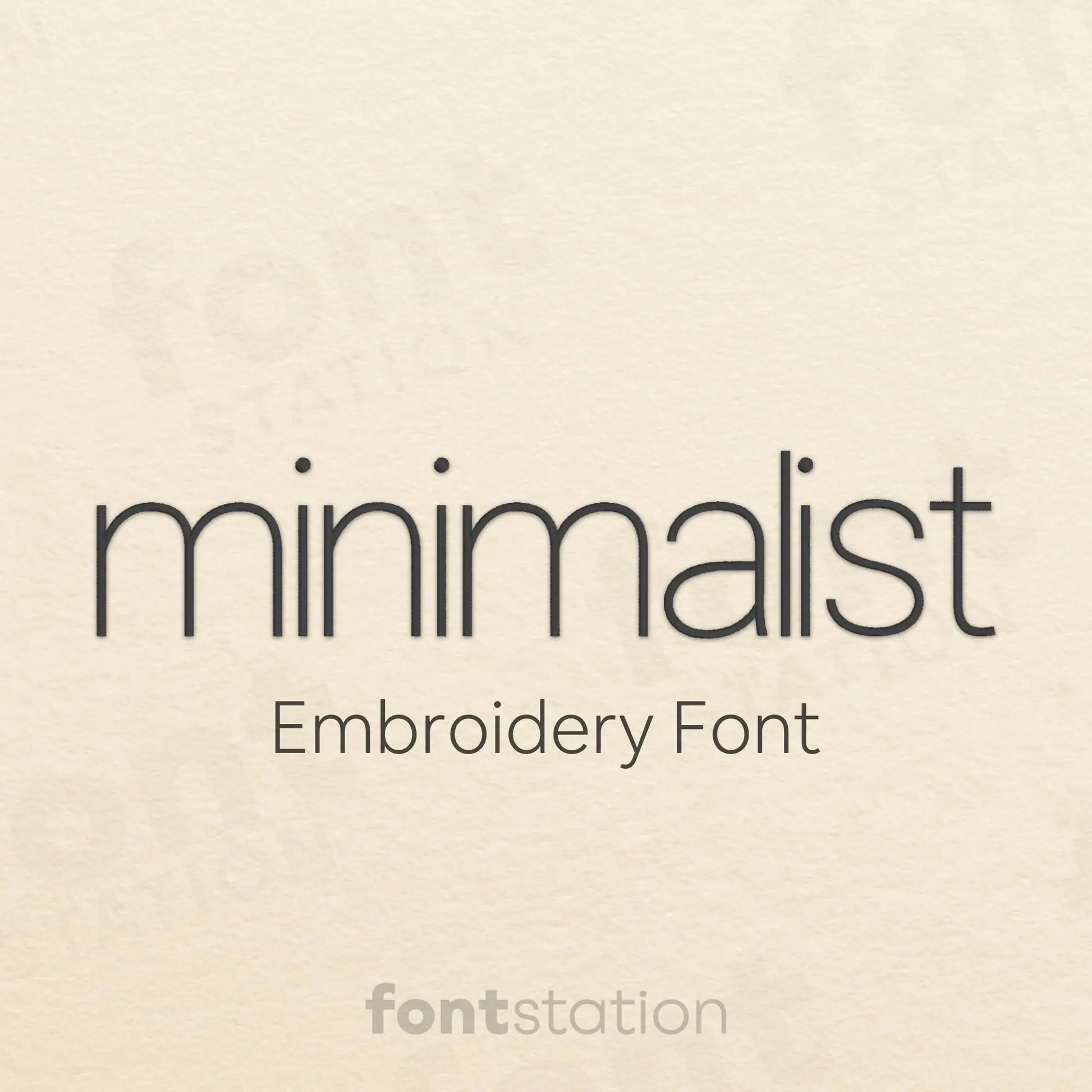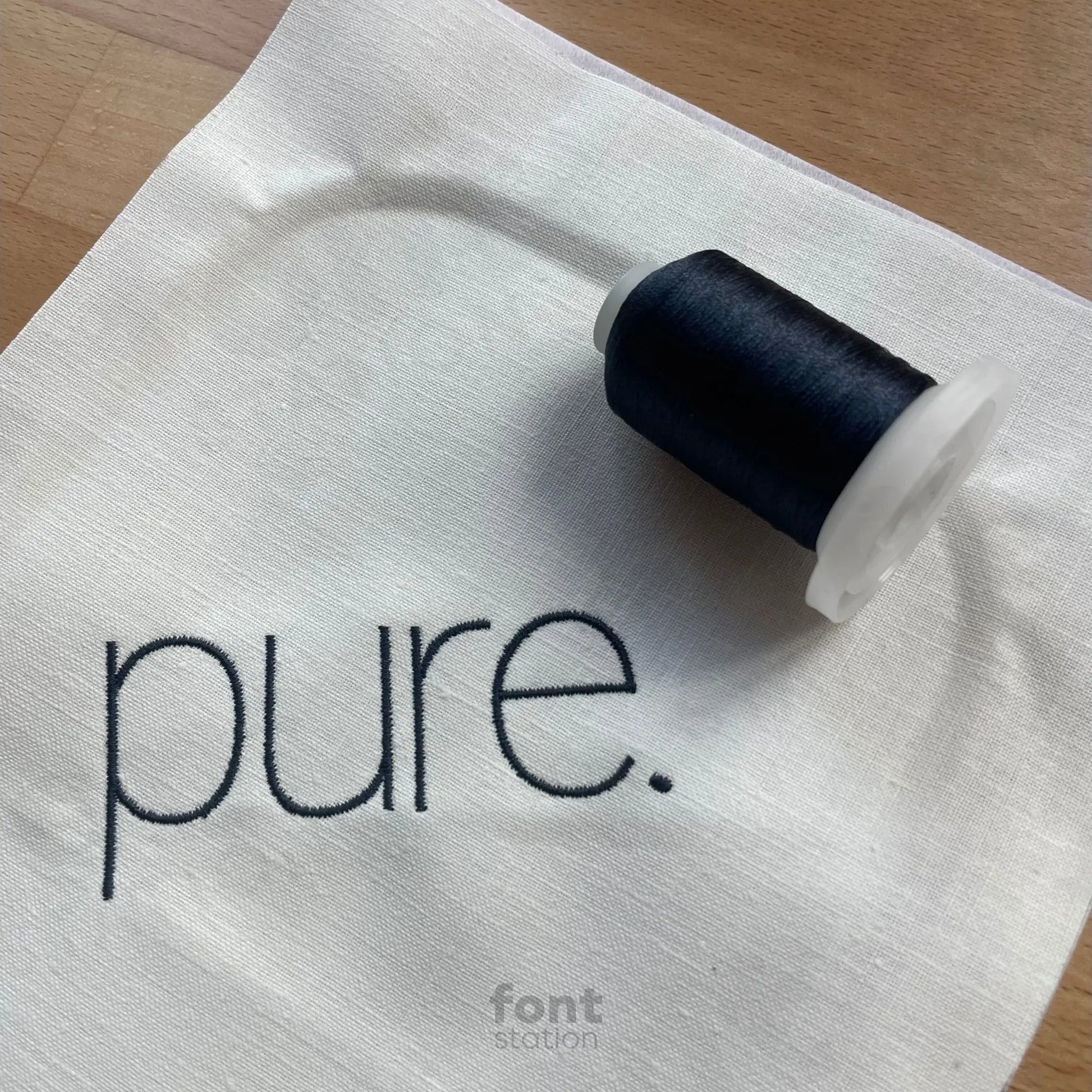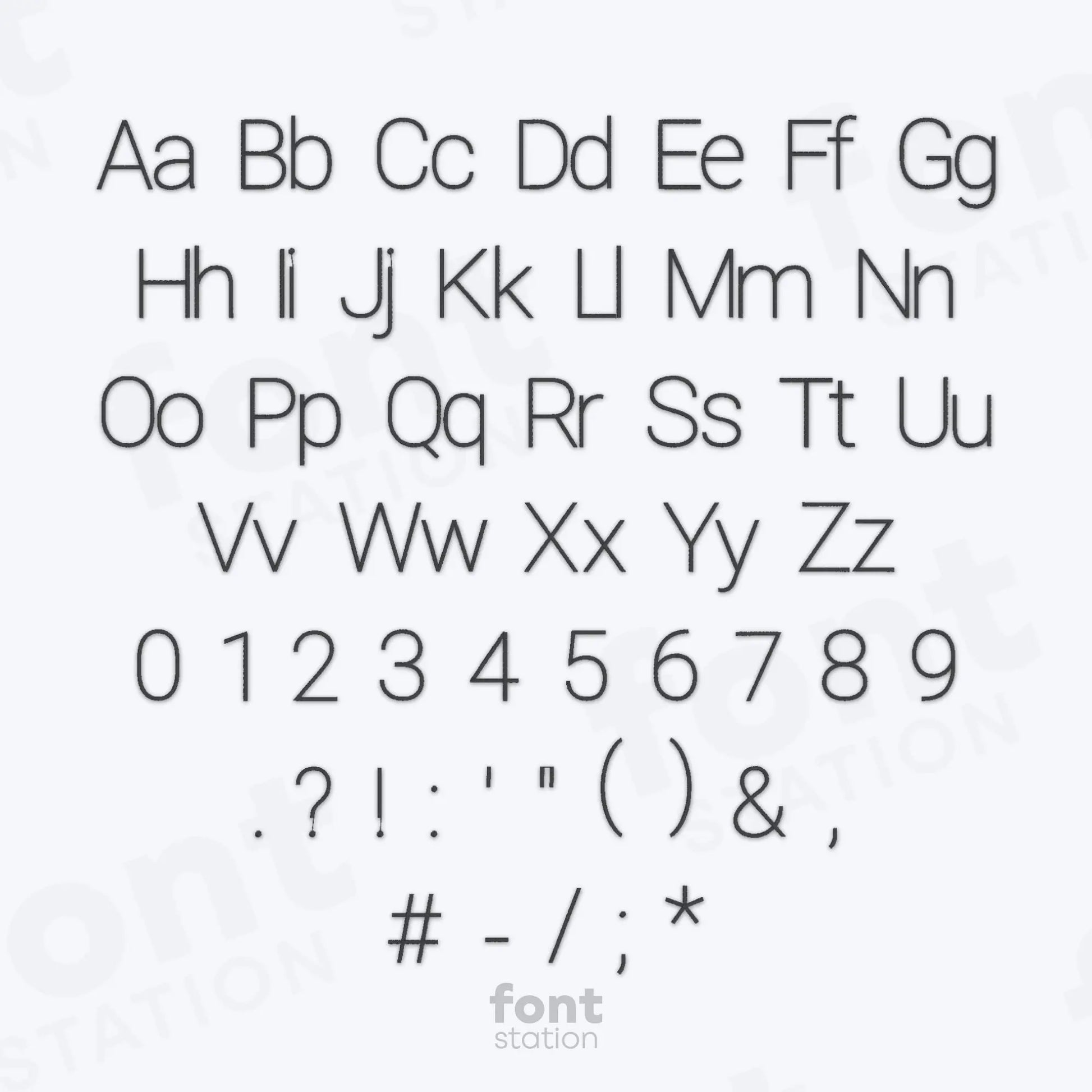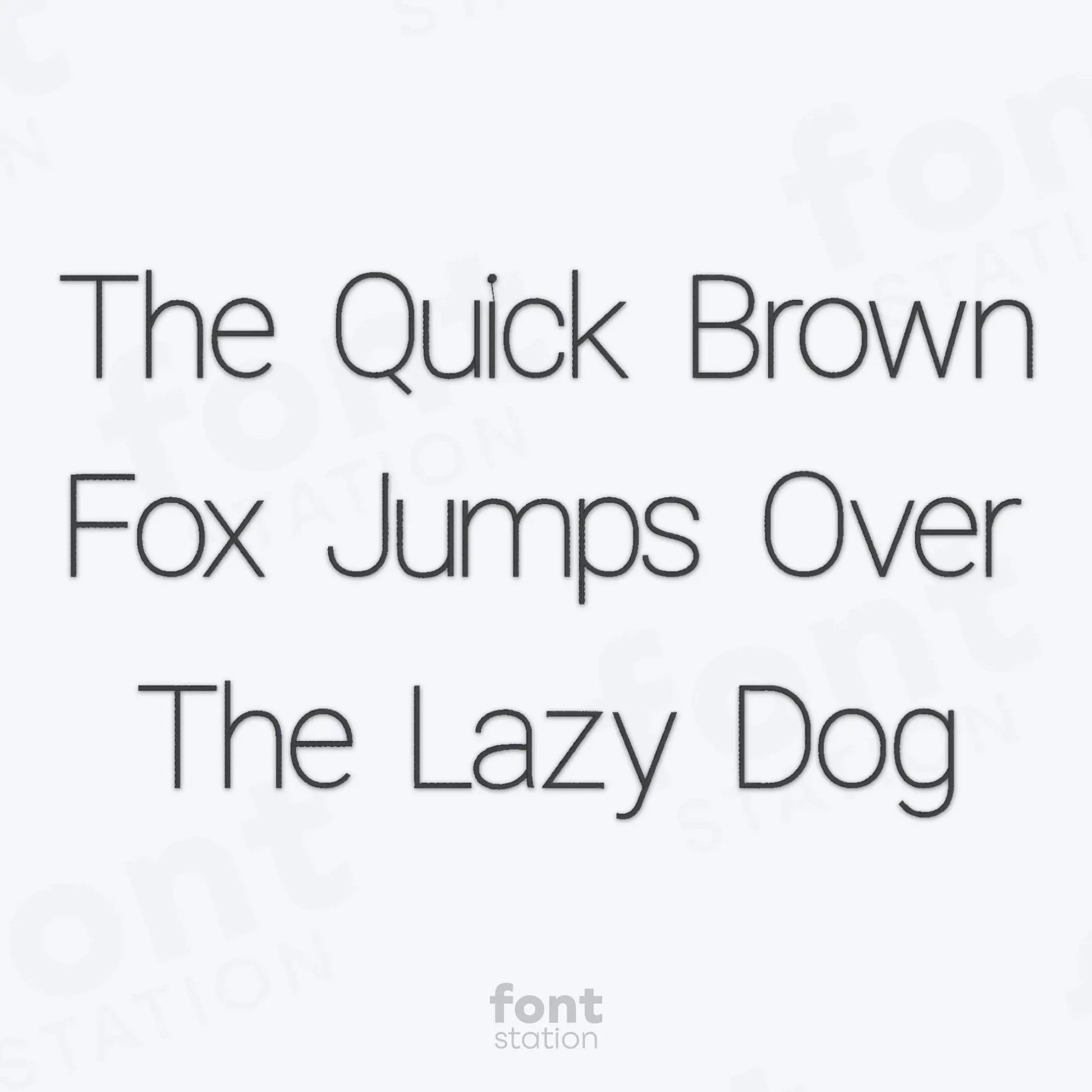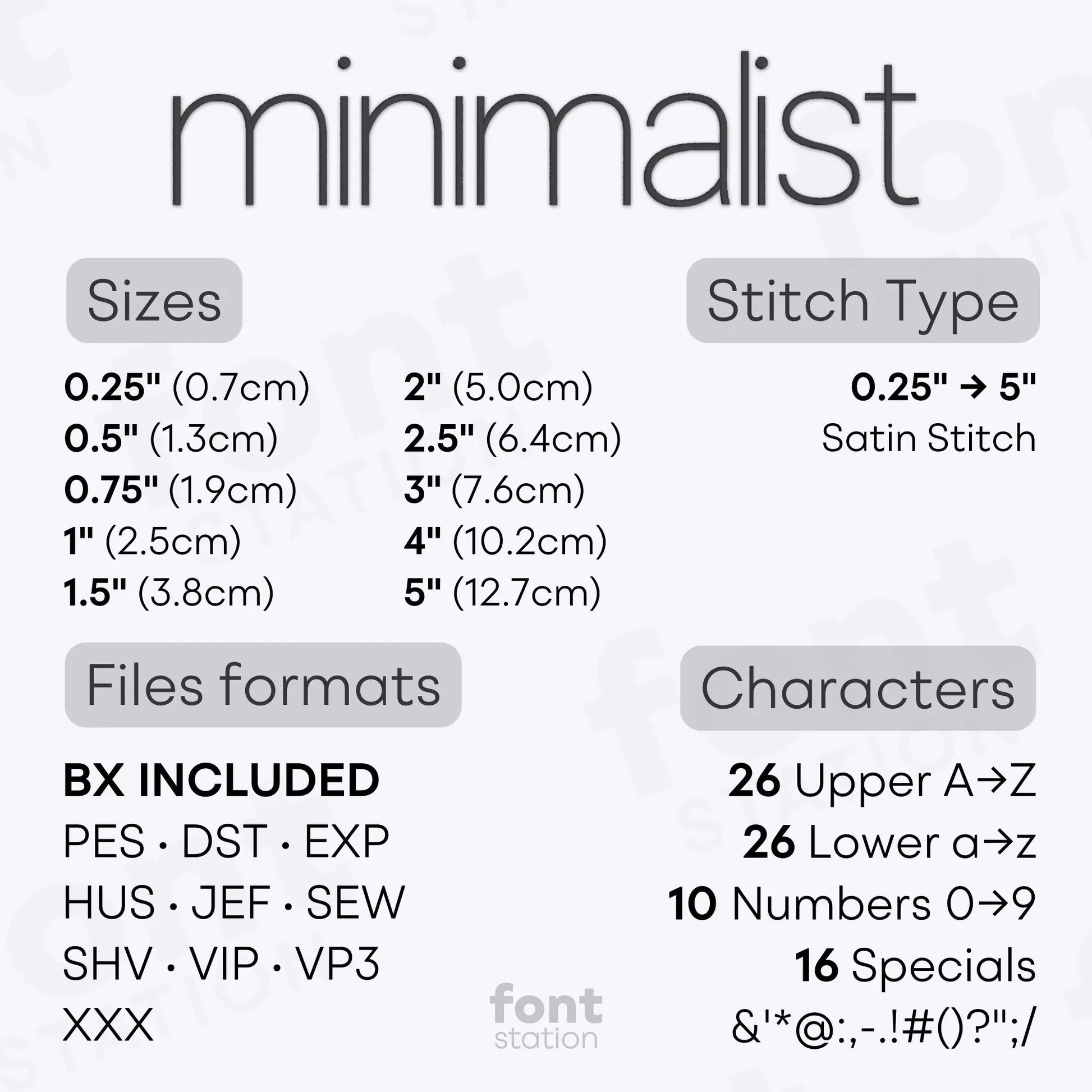
Minimalist Embroidery Font
Discover our Minimalist embroidery font - a thin, modern alphabet designed for clean, aesthetic stitch work. These refined letters are perfect for your next embroidery project, stitching smoothly on any embroidery machine for stylish, minimal designs.
About the Minimalist Embroidery Font
Our Minimalist embroidery font adds a modern, refined touch to your machine embroidery projects.
Designed with simplicity and elegance in mind, this thin, minimalist embroidery alphabet is perfect for creating clean, stylish lettering on a variety of items. Whether you're personalizing gifts, customizing clothing, or adding a subtle aesthetic to your designs, these modern embroidery letters offer a timeless look.
The font includes the full embroidery alphabet in multiple formats like BX, PES, DST, JEF, and more - compatible with most embroidery machines. Beautifully digitized for smooth stitching, this thin embroidery font is ideal for delicate designs, small text, and minimal-style embroidery projects.